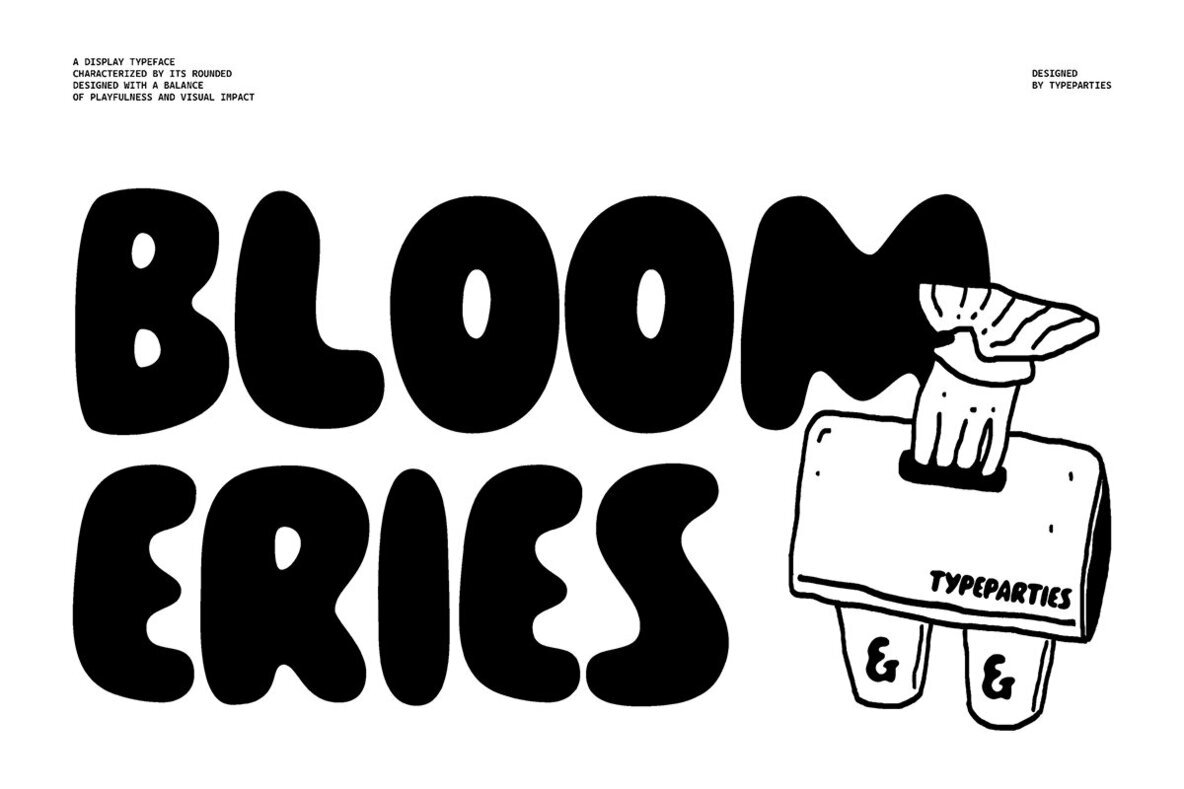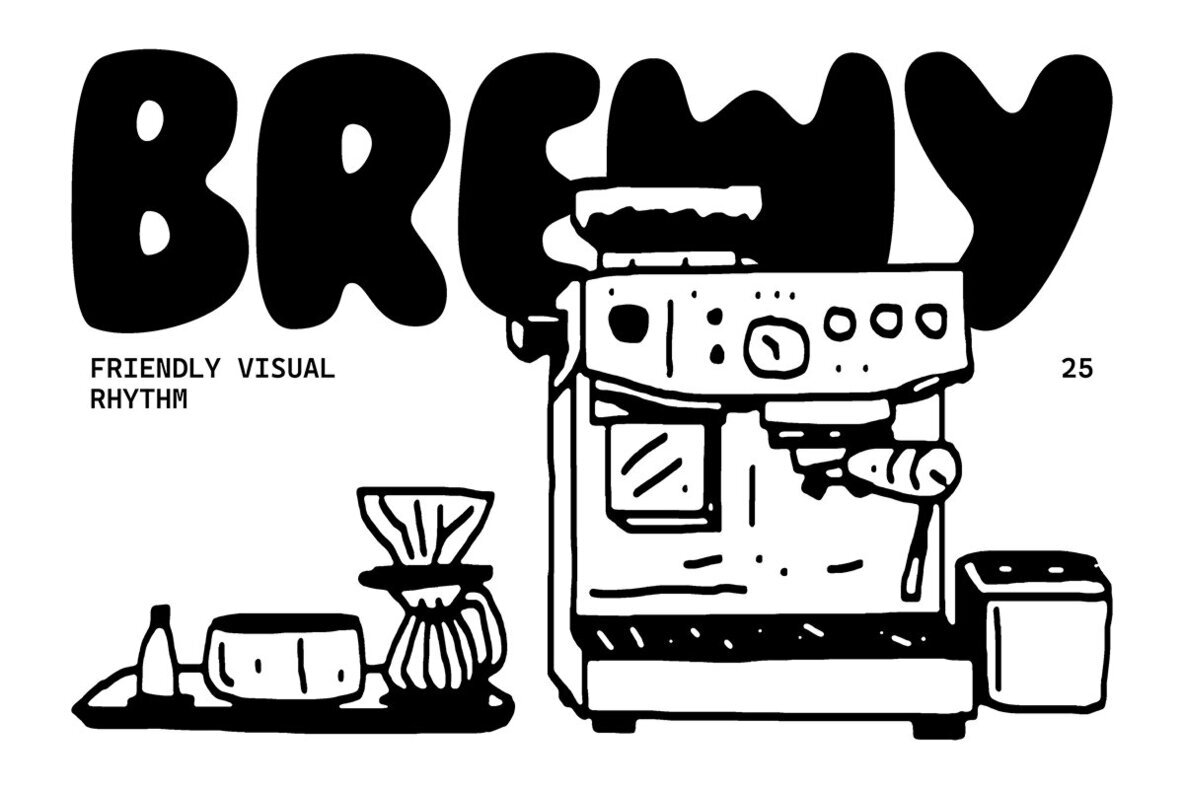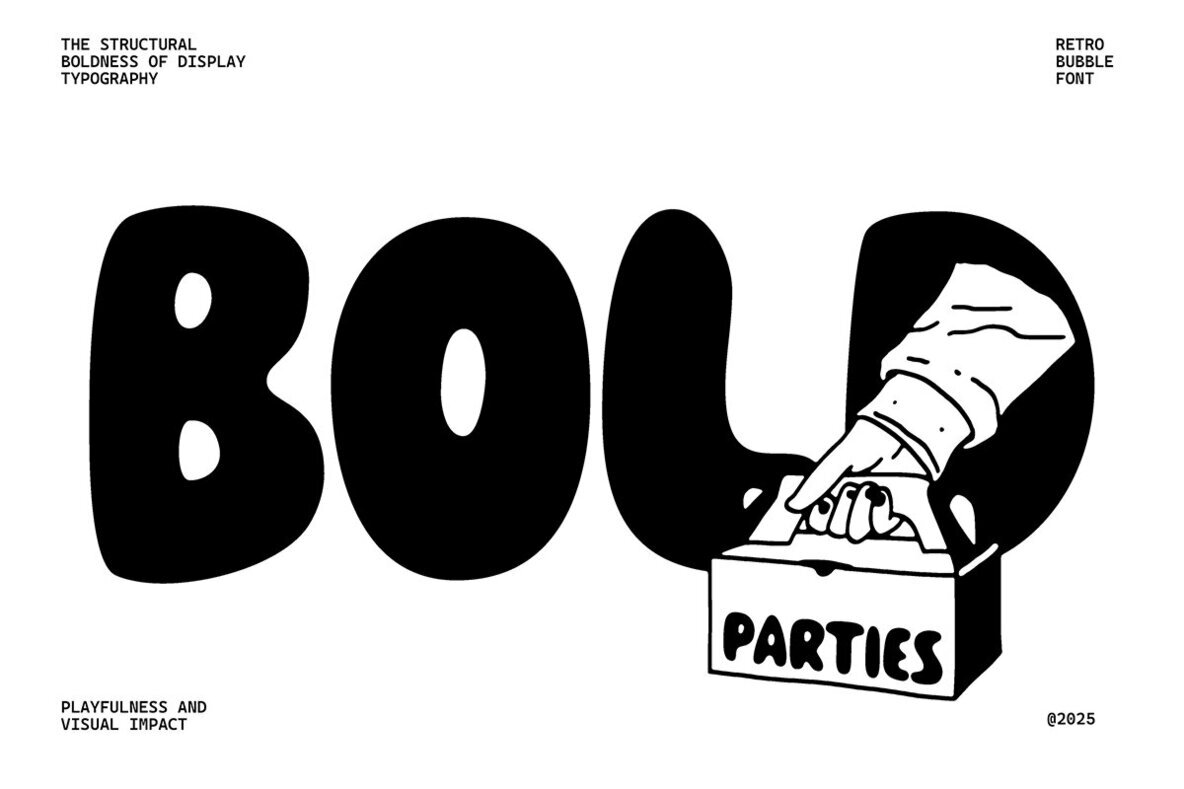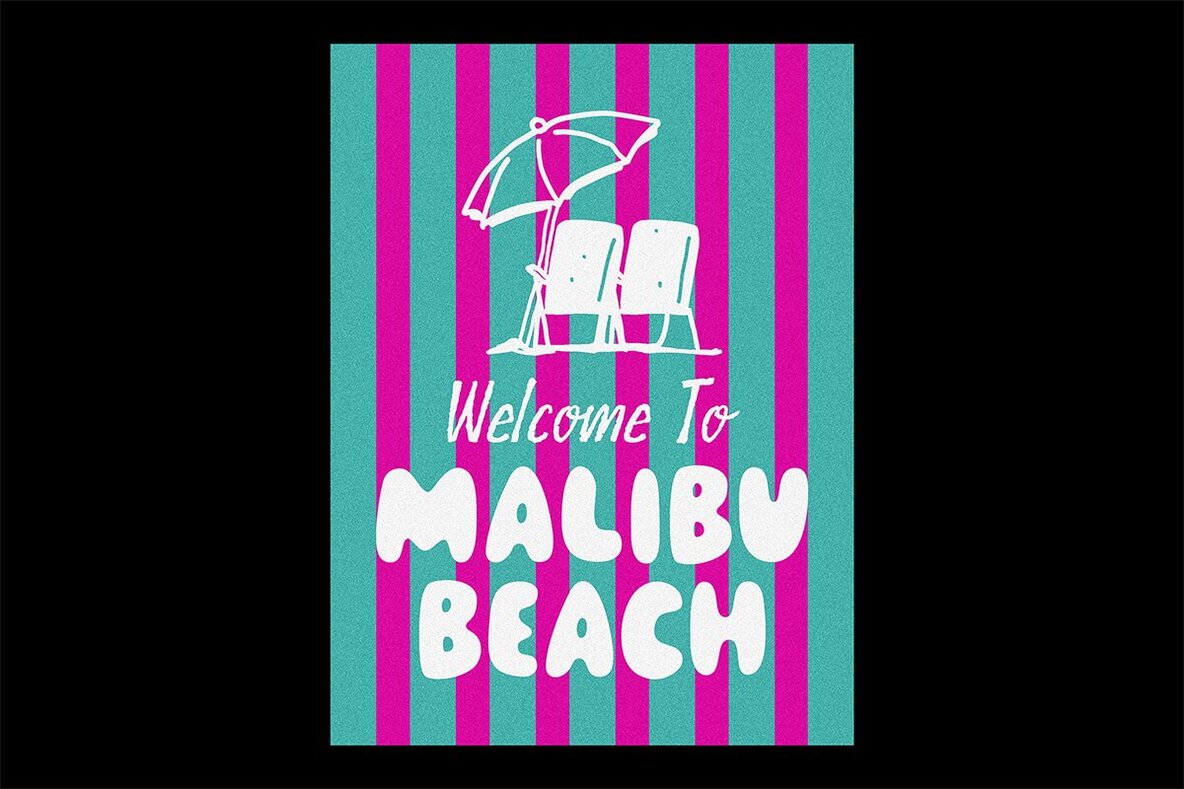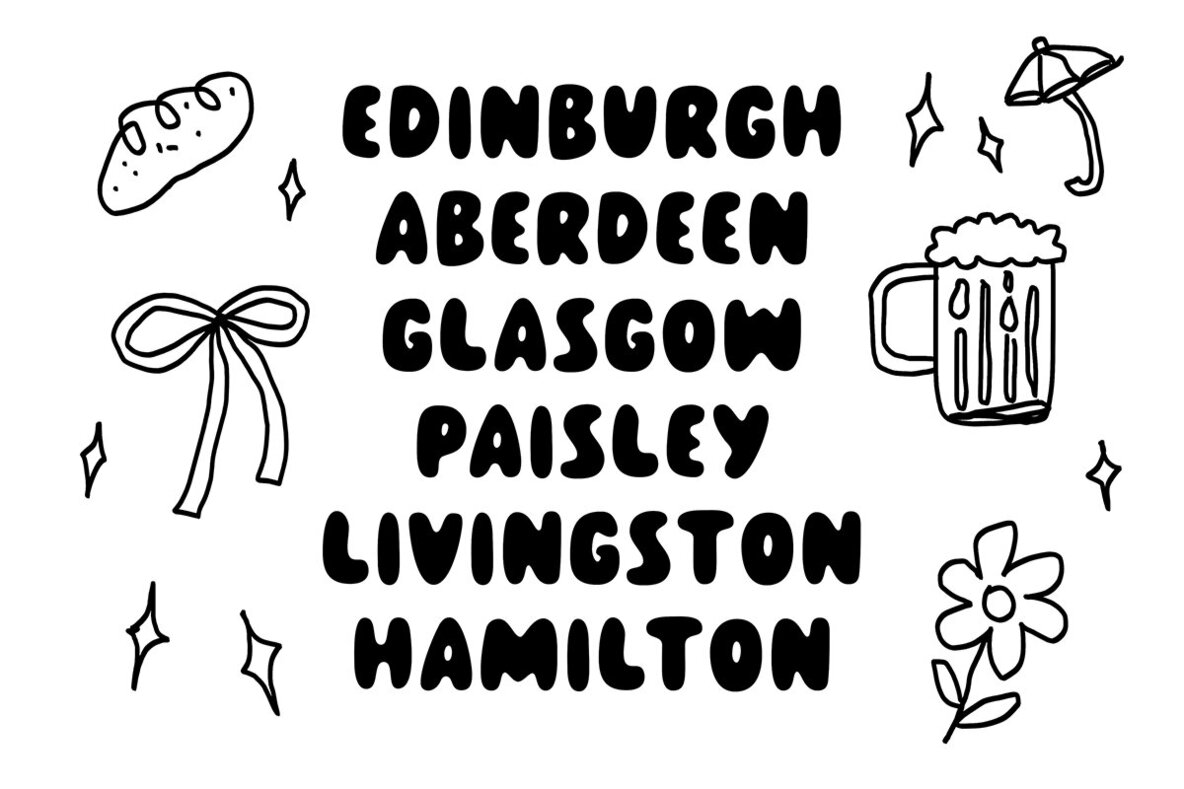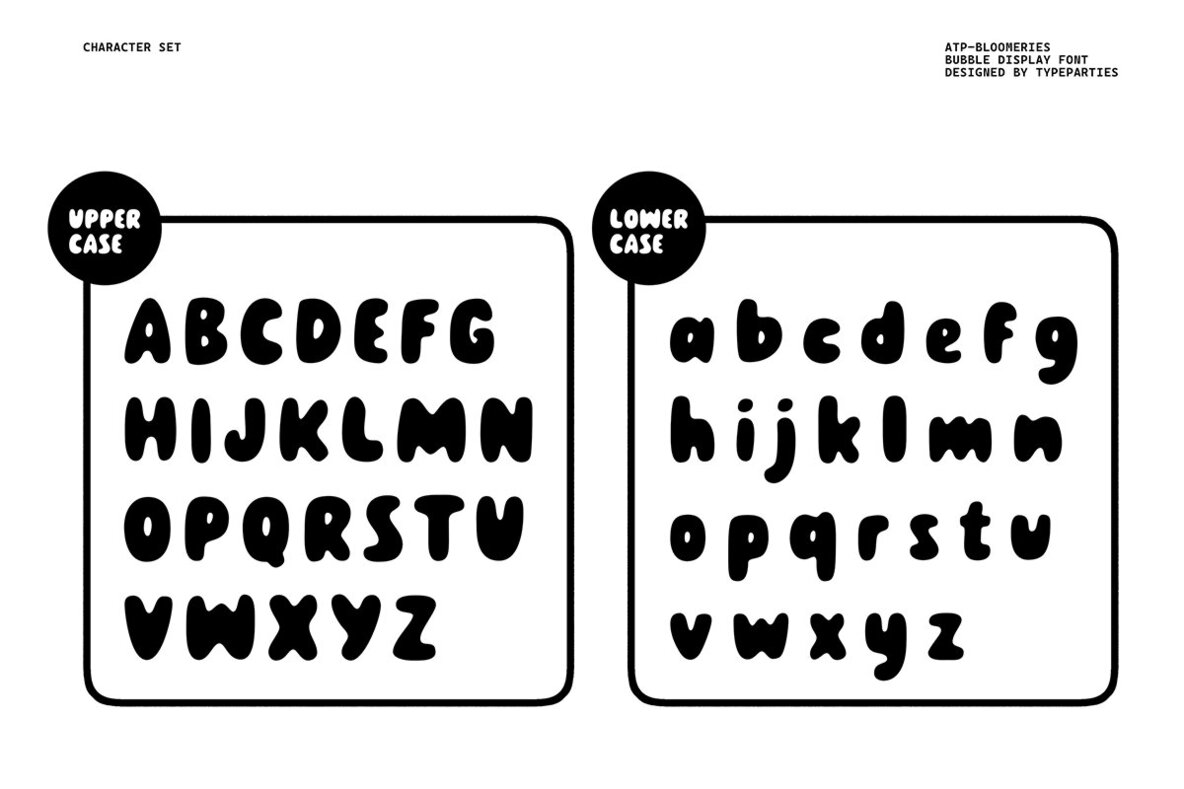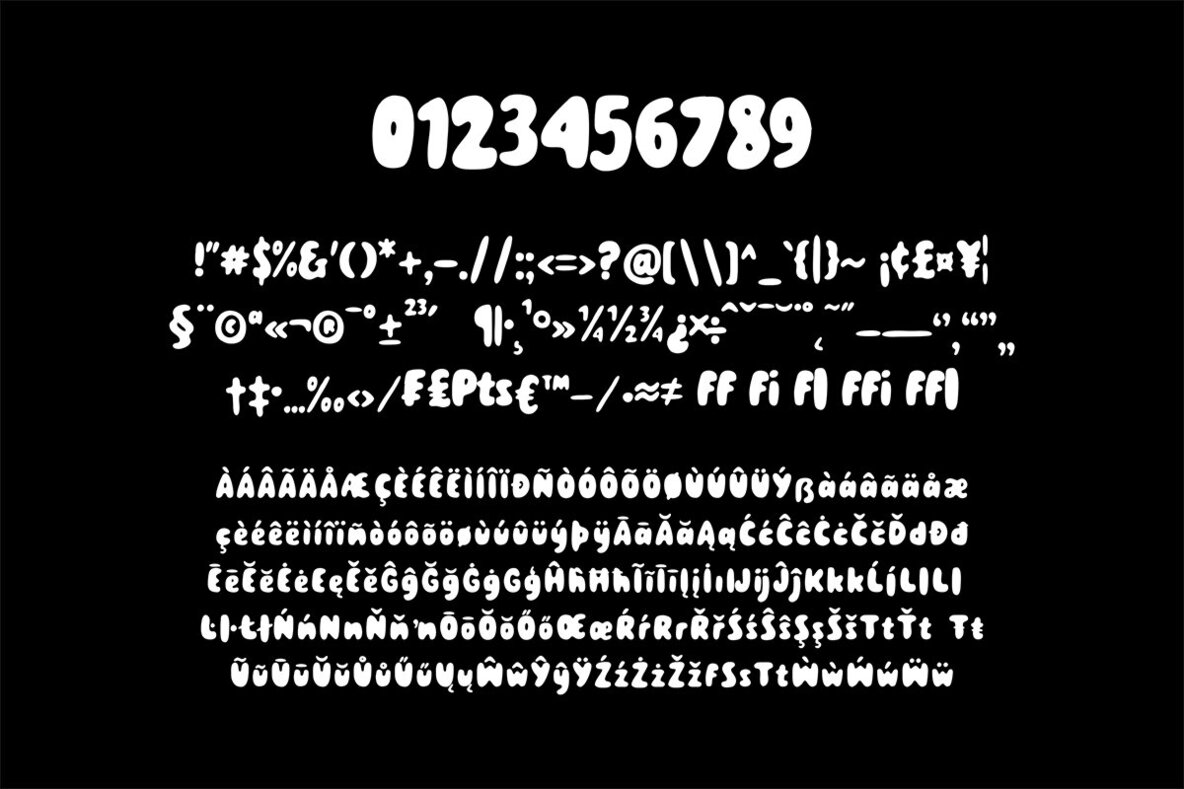
Bloomeries Font
ATP Bloomeries
Bloomeries stands out with rounded, voluminous letterforms and dynamic, wave-like contours. Its design brings together playful curves and strong visual presence, echoing retro aesthetics while keeping a fresh, contemporary appeal. This font is ideal for designers seeking unique character and energy in headlines, branding, posters, or editorial layouts. Every detail in Bloomeries supports both legibility and style, making it easy to set eye-catching text that feels approachable and bold. Its distinctive structure works well across digital and print mediums, offering versatility for creative projects that require a touch of personality.Bloomeries Bubble Display Font